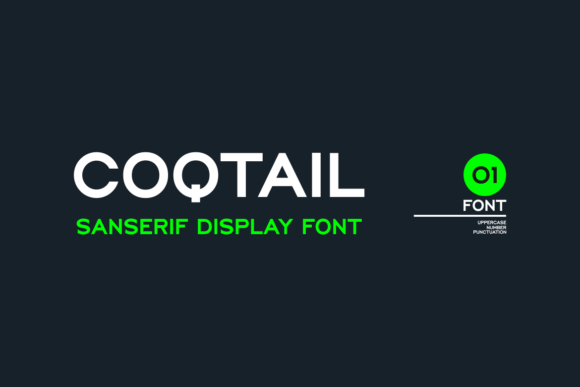
Dive headlong into the world of casual elegance with Coqtail Font, the display font that exudes charm and sophistication. Created by the esteemed brahamb78, this font is a testament to the power of simplicity and timeless design.
Coqtail Font boasts a clean and simple appearance that effortlessly complements any design project, from personal letters to professional presentations. Its smooth curves and elegant lines evoke a sense of nostalgia, reminiscent of vintage typewriters and handwritten correspondence.
Unleash your creativity and elevate your designs with Coqtail Font. Its versatility knows no bounds, making it the perfect choice for logos, branding, invitations, posters, and any project that demands a touch of understated elegance.
Coqtail Font is more than just a font; it's an experience. It carries with it the essence of casual sophistication, inviting you to express yourself in a way that is both personal and impactful.